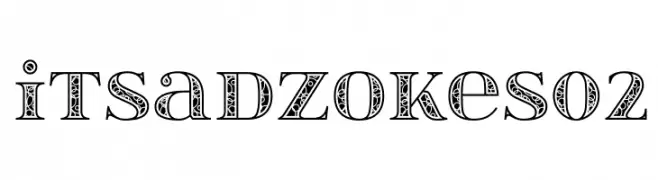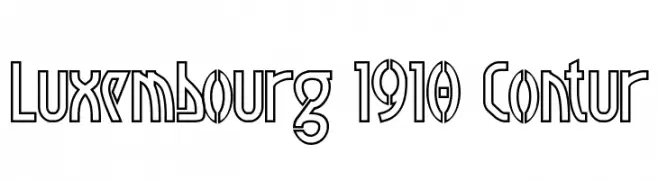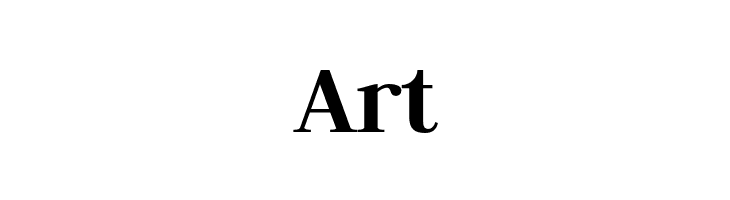
A classic serif font with high contrast and elegant curves.
A classic serif font with elegant strokes and refined design.
An ornate, decorative serif font with intricate interior patterns.
A classic serif font with elegant curves and sharp serifs, offering a sophisticated and timeless look.
A bold, geometric font with a 3D shadow effect for a modern, dynamic look.
A geometric, outline font with a modern and futuristic style.
A modern, geometric sans-serif font with a clean and balanced design.
). ) A bold, classic serif font with sharp serifs and a traditional appearance.
). ) An elegant serif font with a refined italic style and smooth, flowing characters.